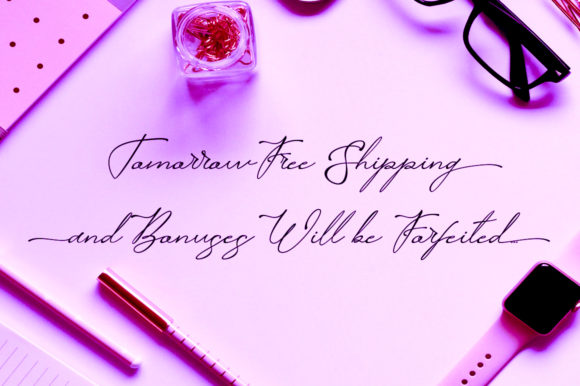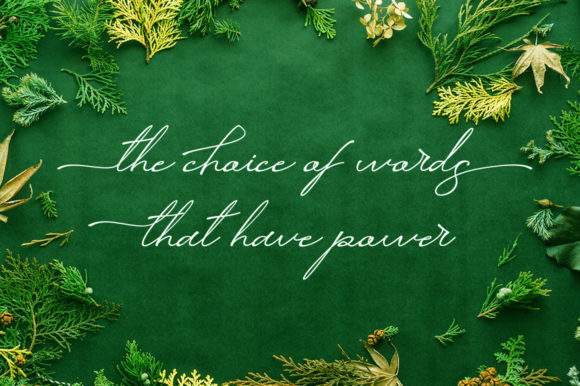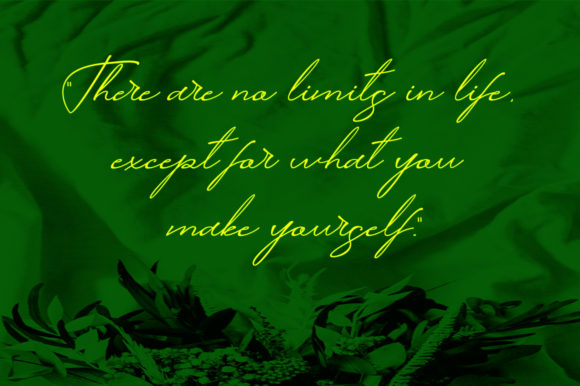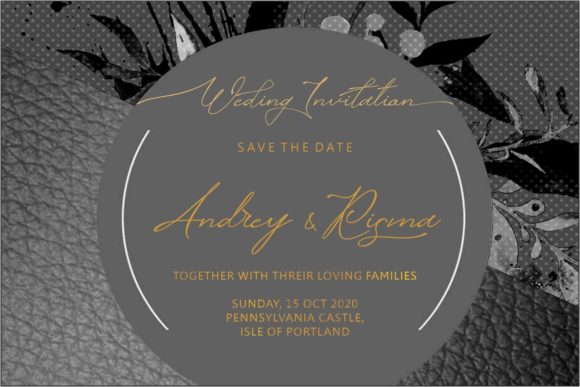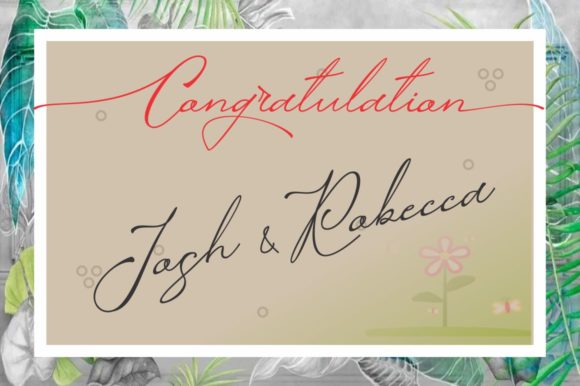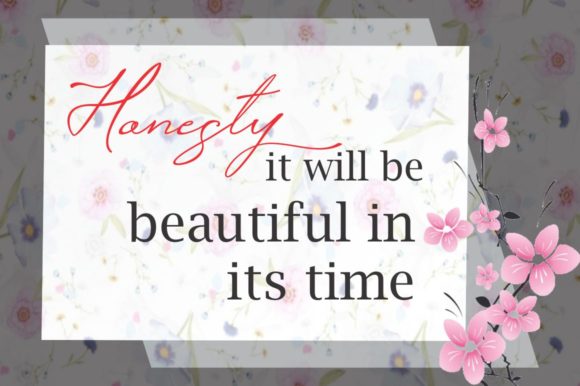
Introduction to Kolectife Font
Kolectife Signature is a dazzling script font.
This font is neatly crafted and highly detailed Whatever the topic, this font will be a wonderful asset to your font library, as it has the potential to enhance any creation.
Key Features of Kolectife Font
Why Choose Kolectife Font?
Kolectife Font offers exceptional quality and versatility, making it a valuable addition to your design toolkit. Whether you’re creating for personal projects or commercial use, Kolectife Font delivers professional results.